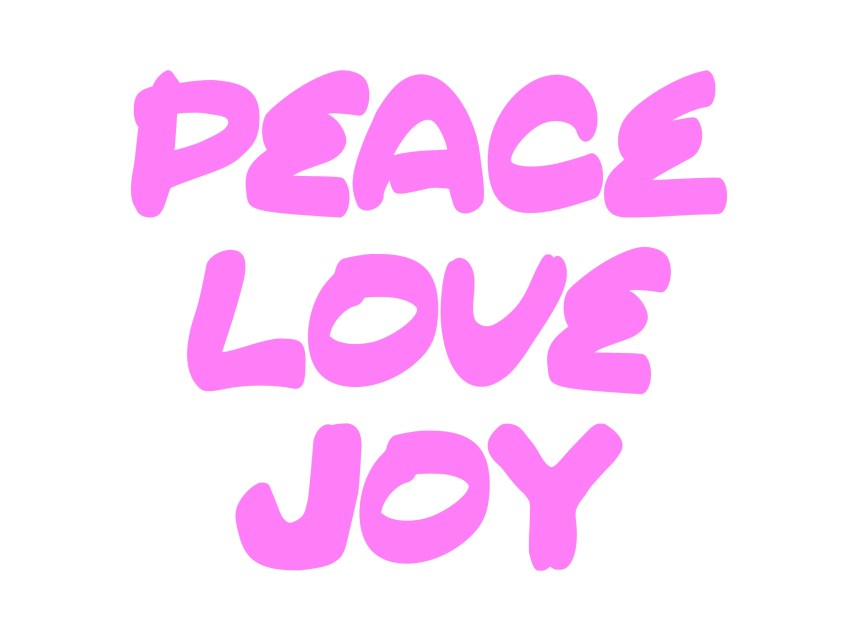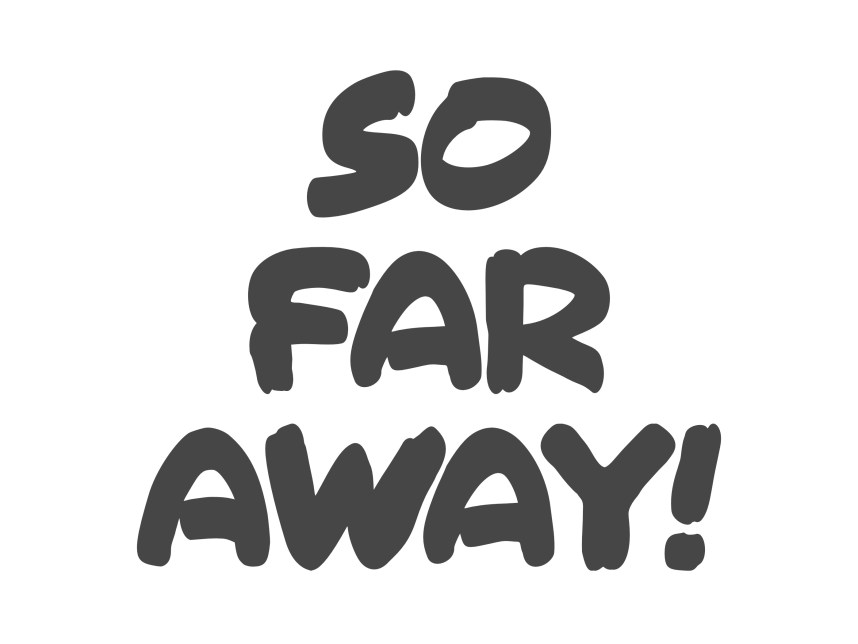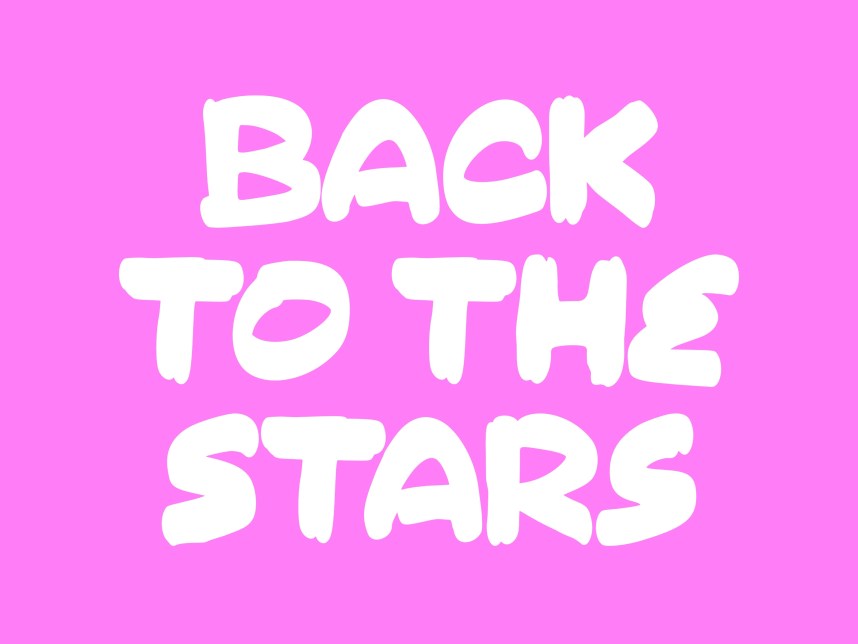
COME ALIVE Font
Introducing COME ALIVE Font! Come Alive is a very emotional font. These fonts will add to your design sincerity and feeling. COME ALIVE is designed and shared for free by No Regular Fonts. Scope: Handmade, coffeeshop, interior design, deli, grocery, flower shop, drawings, interfaces, infographics, statistics, graphic design, logotypes, structures, TV design, packaging, design of interiors and exhibitions, presentations and events…